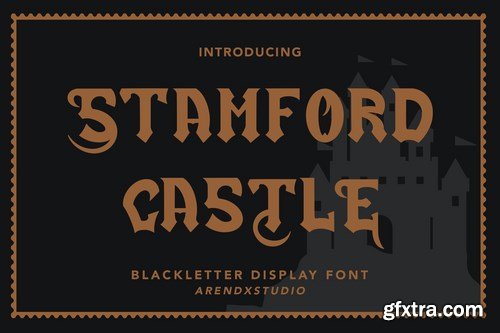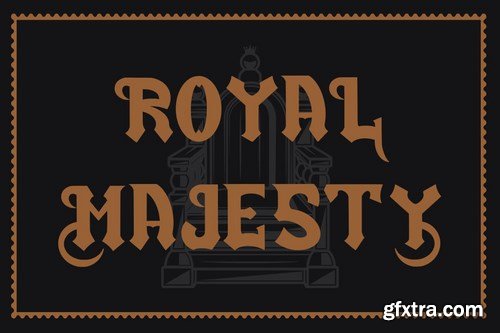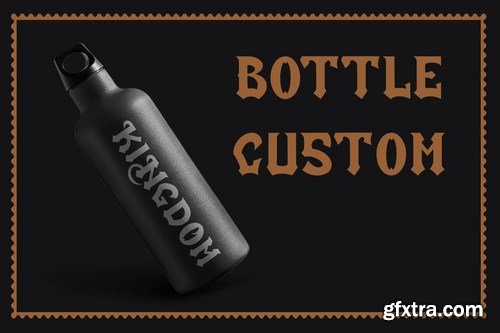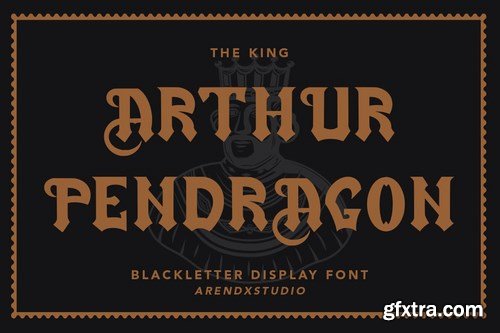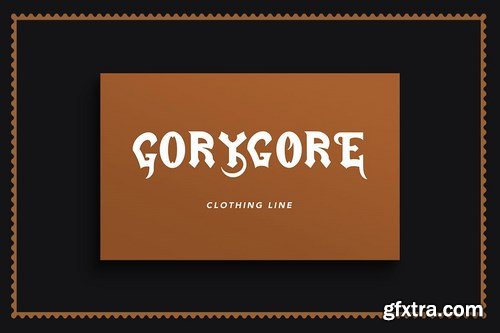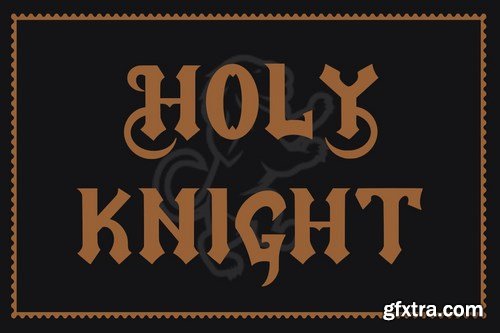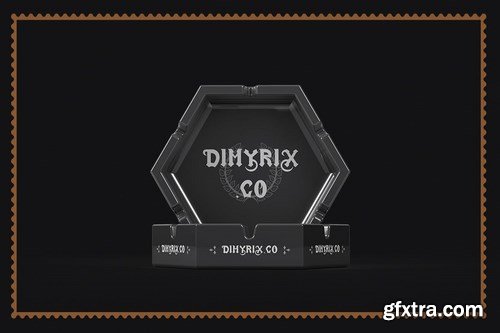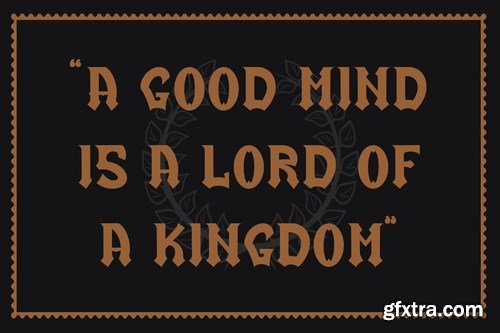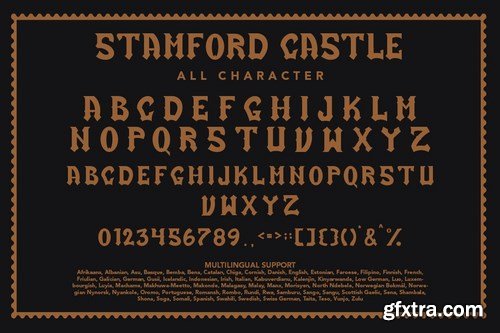
Stamford Castle - Blackletter Display Font is a display font that is inspired by gothic and horror style because its shape is very unique and is perfect for any project that you will use with this theme.